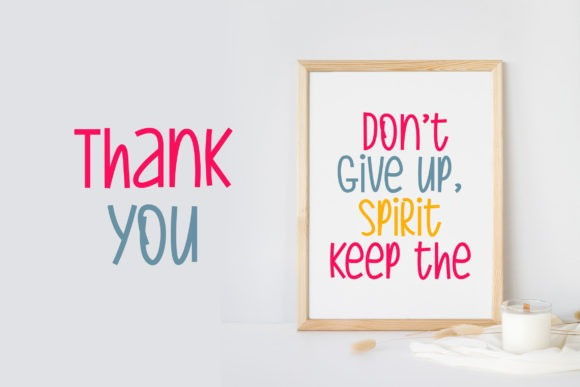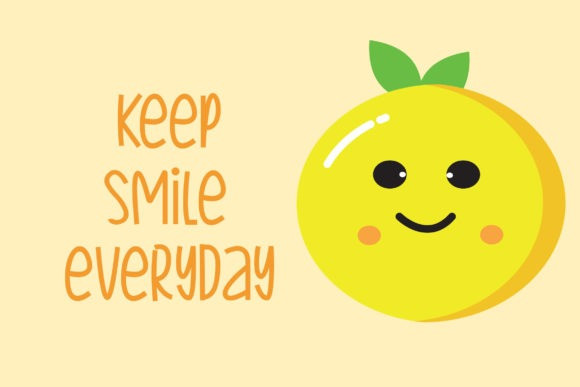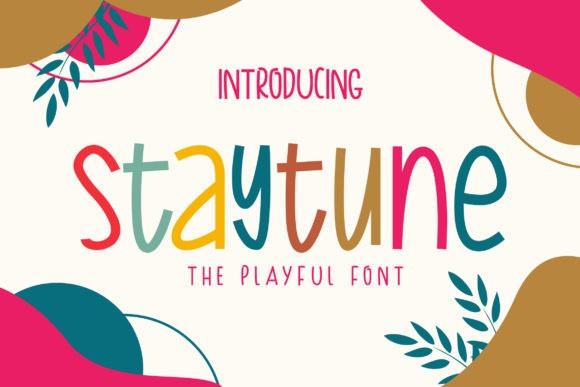
Staytune Font
Staytune Display Font is a cute and colorful display font. It embodies playfulness and authenticity and is the perfect choice for any children activity or school project.